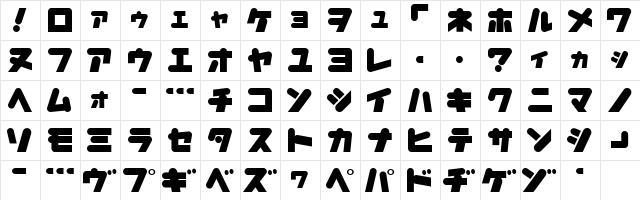
HappyChicken Regular
Design Context for HappyChicken Typeface
HappyChicken offers clean, dependable letterforms without strong stylistic allegiance, making it a practical choice for designers who need flexibility.
Pro Tip: Use HappyChicken in both headline and body roles to test its range before committing to a single application.